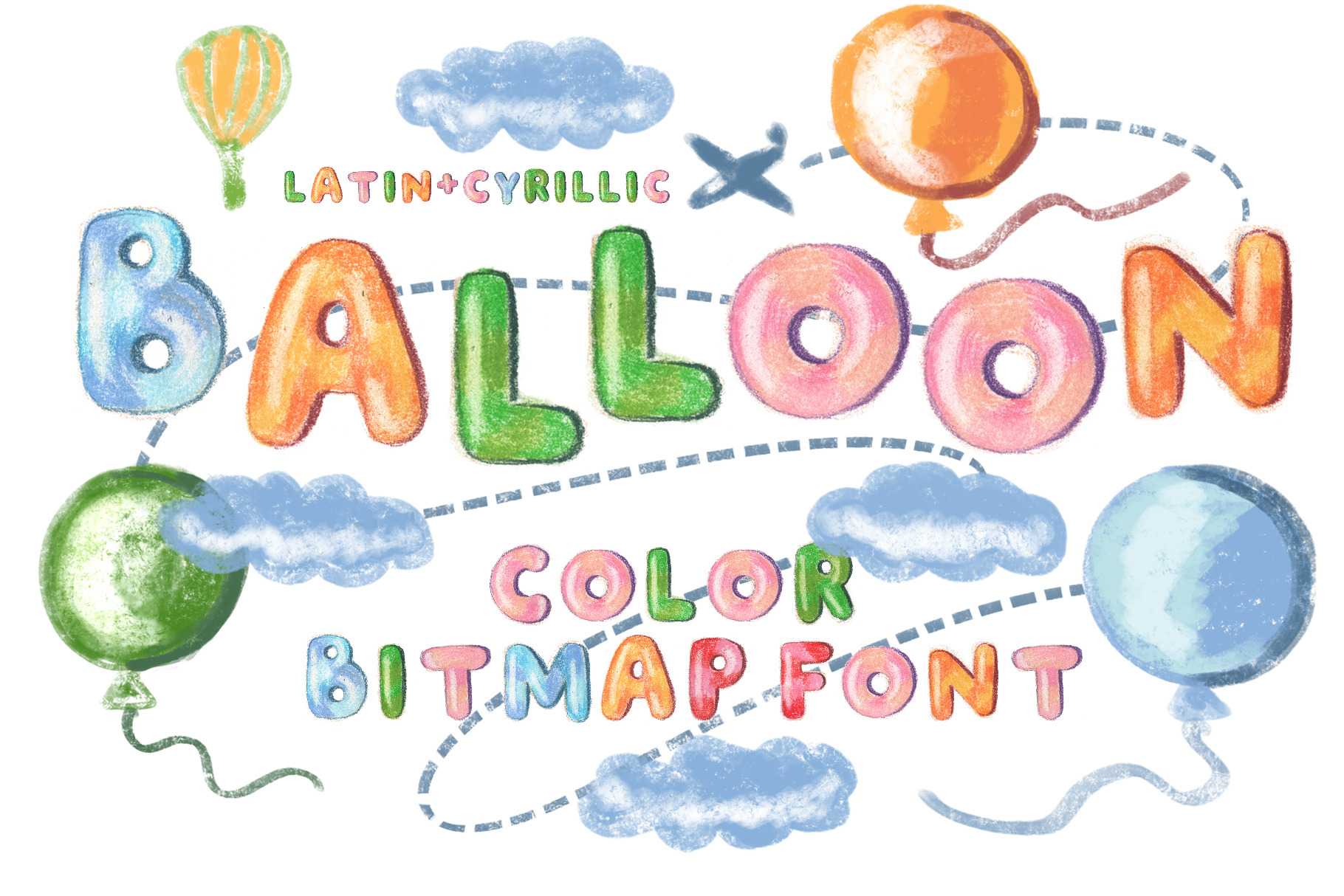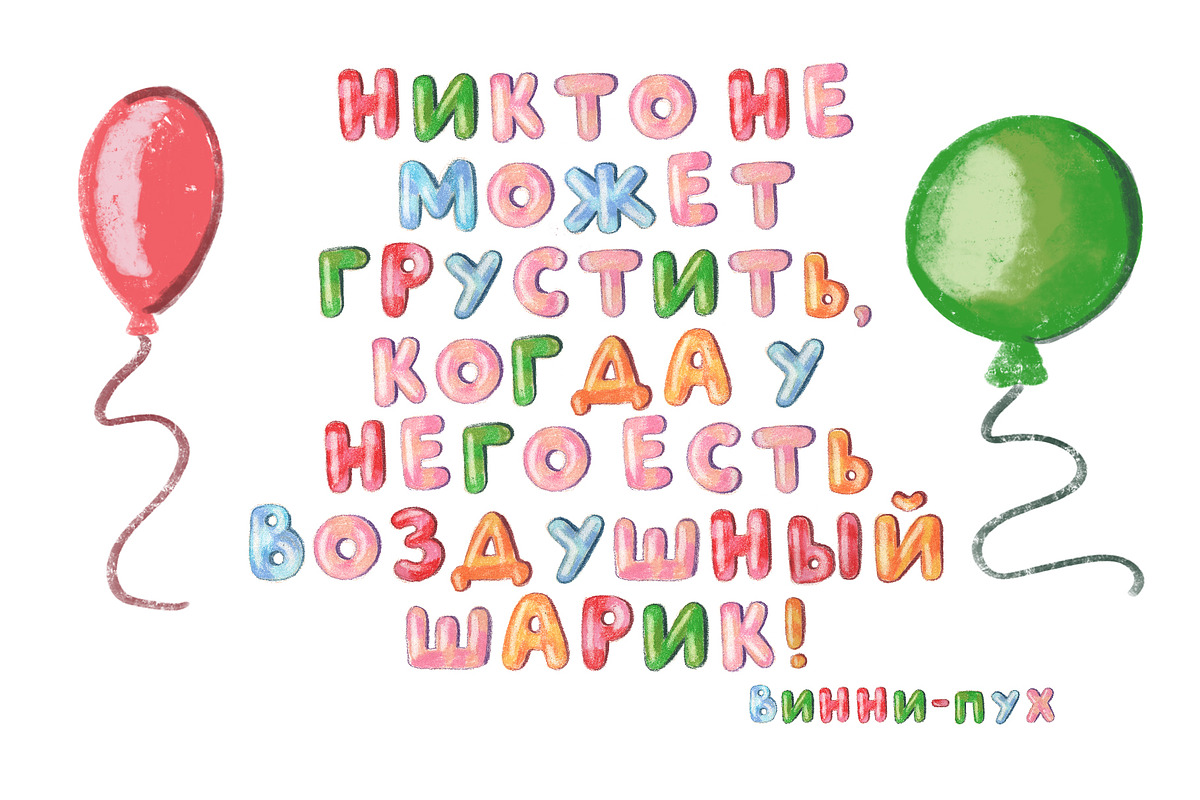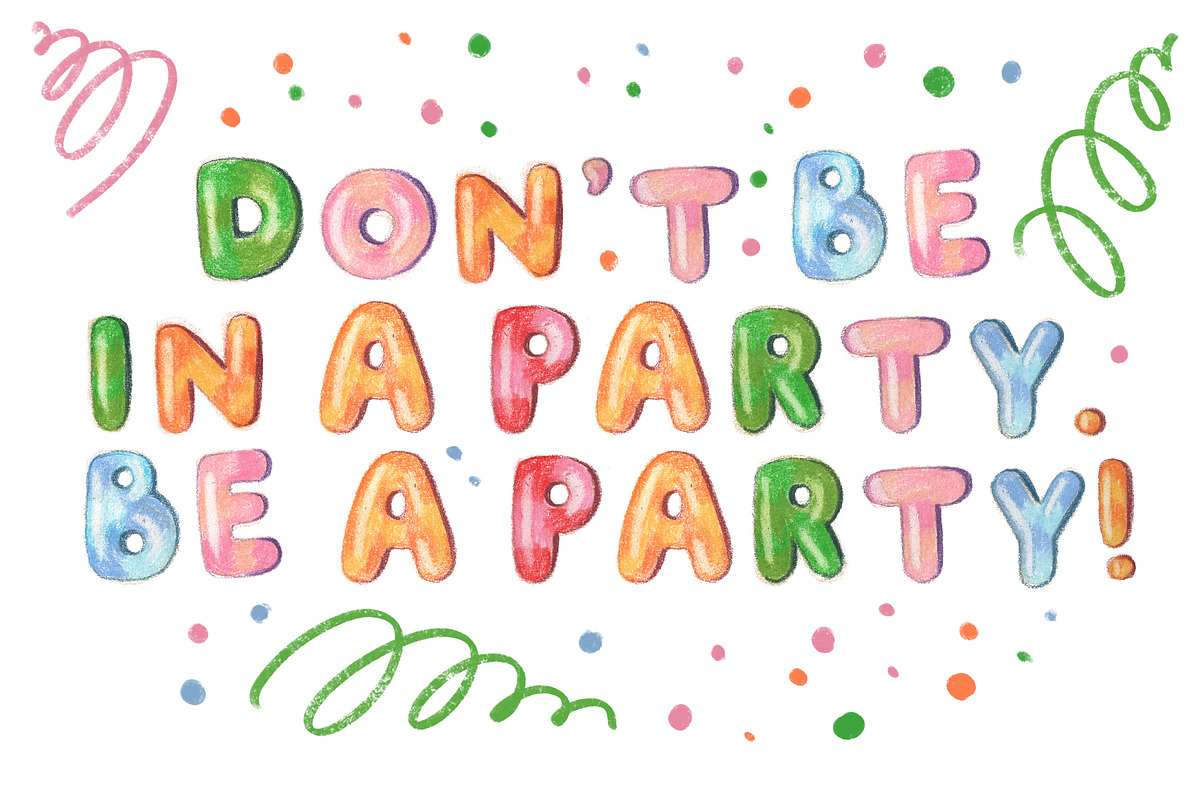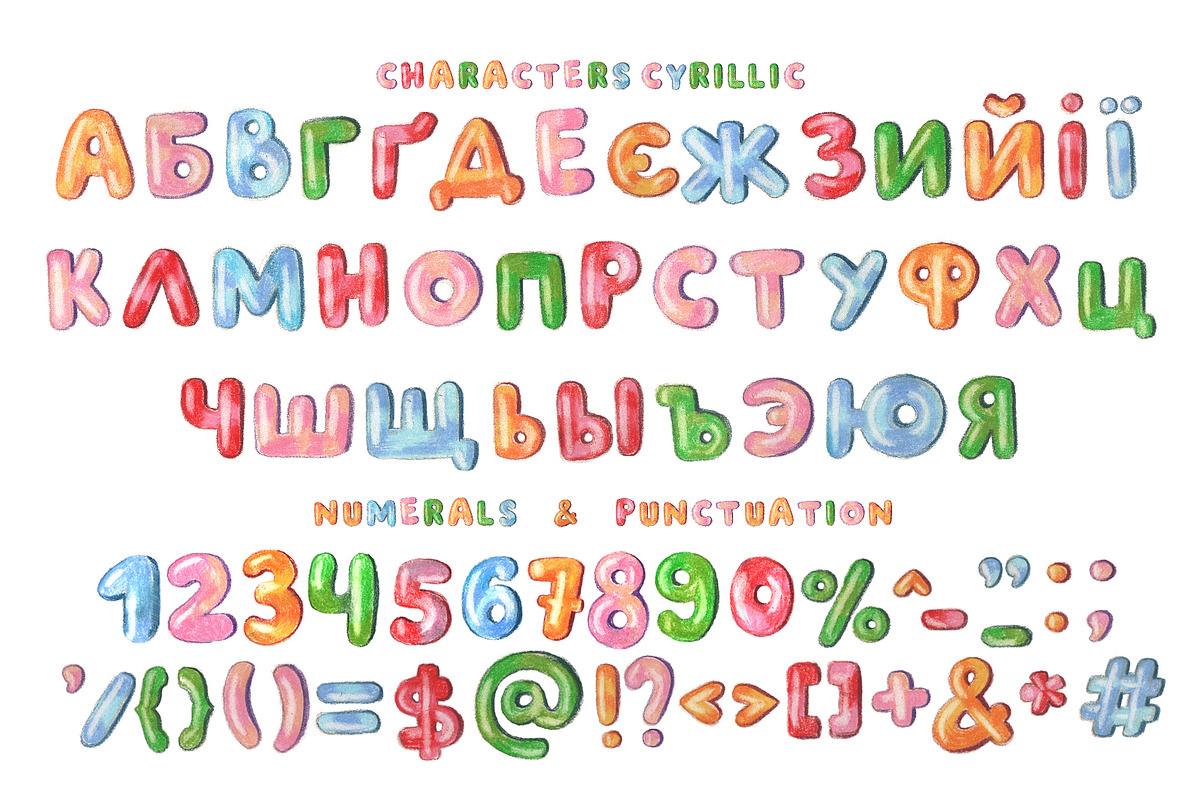
"Balloon" color bitmap font
I'm happy to present you my new handmade fun color bitmap OpenType-SVG font – "Balloon" with Latin and Cyrillic letters! "Balloon" font contains Latin letter and Cyrillic letter set, numerals and punctuation. This font work nicely for all sorts of things including t-shirt design, typographic art, social media images and so much more!
Font features: Standard characters A-Z, 0-9, and punctuation for the Latin Basic and Western European set, Cyrillic А-Я set, additional letters for the Ukrainian language. Thanks and Enjoy!